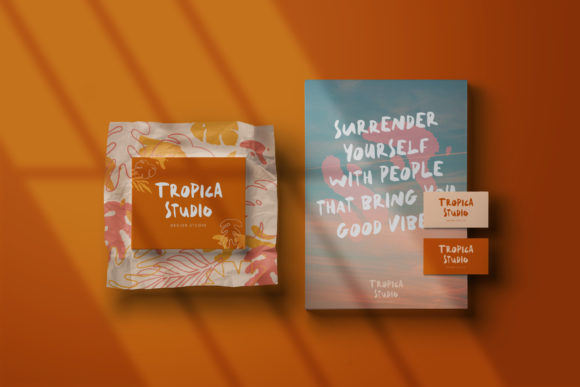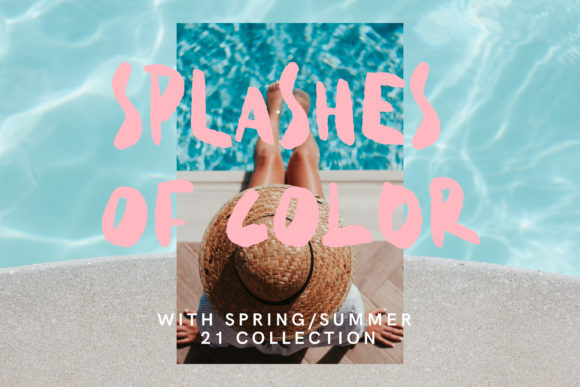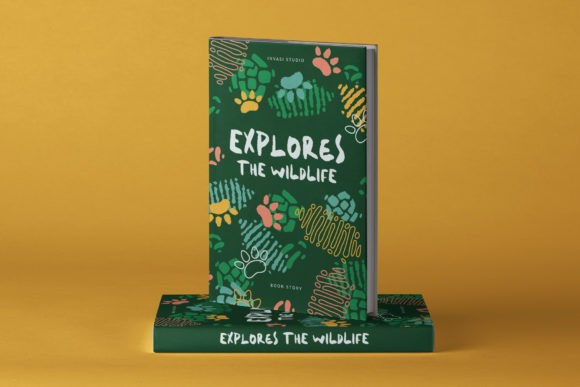
The Ultimate Guide to Fruktosa Font: A Unique Display Font for Trendy Designs
I’ll never forget the time I was working on a project for a client who wanted a bold, playful font to match their trendy brand. I spent hours scouring the internet for the perfect font, but nothing seemed quite right. That was until I stumbled upon Fruktosa Font. With its thick letters and whimsical vibe, it was love at first sight! In this article, I’ll share my honest review of Fruktosa Font, provide a practical guide on how to use it, and explore similar fonts you might enjoy.
My Honest Review of Fruktosa Font
So, what makes Fruktosa Font so special? Here are a few things I love:
- ✨ Unique and eye-catching design: Fruktosa Font is unlike any other font I’ve seen. Its thick letters and playful vibe make it perfect for trendy designs.
- ✅ Highly versatile: This font can be used for a wide range of projects, from branding and advertising to packaging and signage.
- ⚡️ Easy to read: Despite its bold design, Fruktosa Font is surprisingly easy to read, even in smaller sizes.
Of course, no font is perfect, and Fruktosa Font has a few small quirks:
- 🤔 Limited use in formal designs: Fruktosa Font is definitely a display font, and it may not be suitable for more formal designs or projects that require a traditional look.
- ⚠️ Some letter combinations may not work well: As with any font, some letter combinations may not work as well as others. Be sure to test the font with your specific text to ensure the best results.
The Backstory of Fruktosa Font
Fruktosa Font was designed by a team of creatives who wanted to create a unique and eye-catching display font. Inspired by the world of fruit and nature, Fruktosa Font combines bold letters with a playful vibe. The result is a font that’s perfect for trendy designs and projects that require a bit of personality.
| What is Fruktosa Font? | Fruktosa Font is a unique and eye-catching display font with a thick-lettered design and playful vibe. |